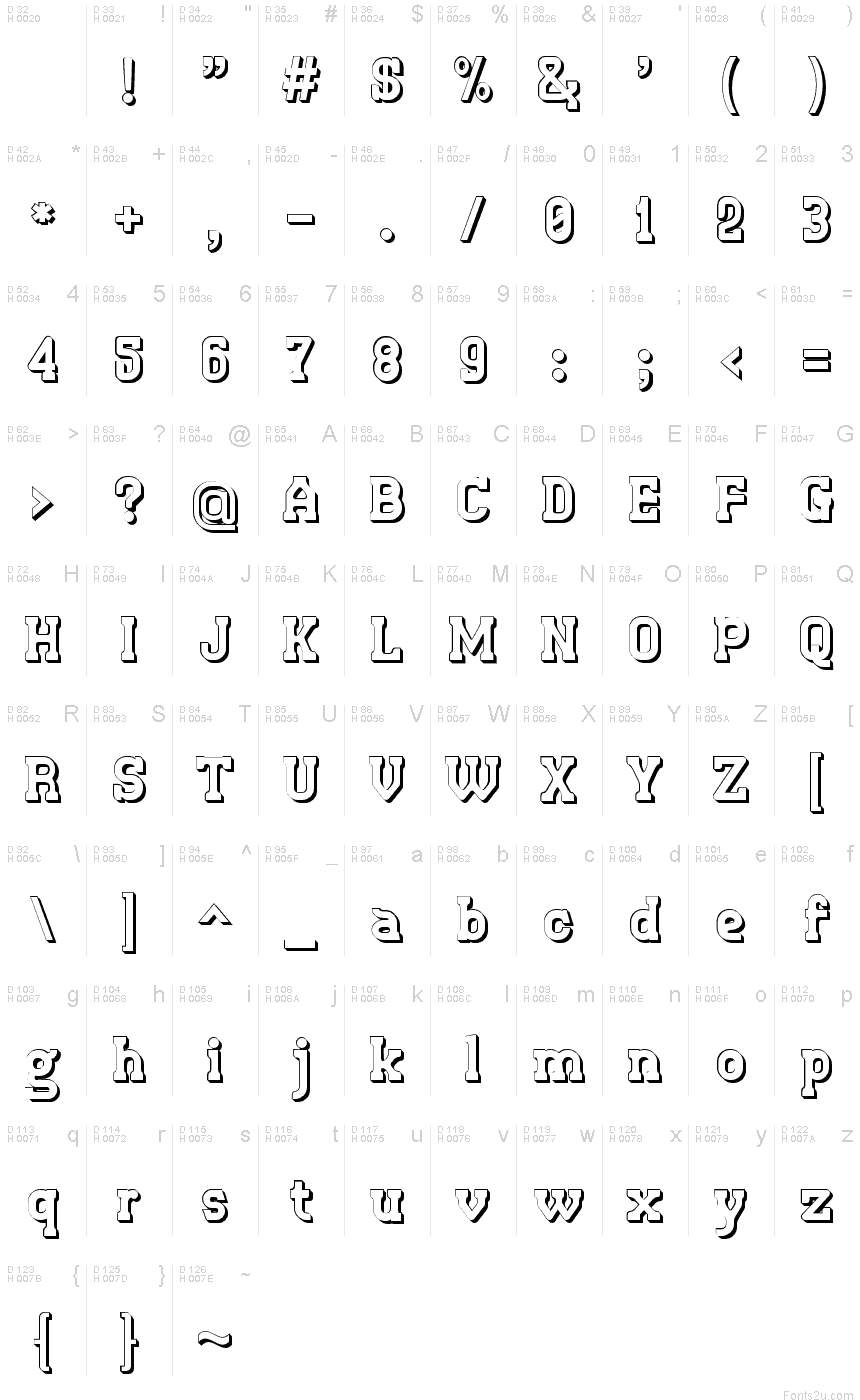
Retro Town 3D by Mostafa El Abasiry is a free Western outlined display font with broad slab serifs and deep offset shadows. Rounded inner shapes soften the sturdy construction, and the uneven notches give the letters the look of hand-cut storefront signage.
A saloon poster is its most convincing role. The same carved, dimensional style suits country music packaging, barbecue restaurant branding, and rodeo merchandise, especially when a design needs an old-town commercial flavor. Its outlined faces and dark side planes can echo illustrated wooden signs, storefront facades, and vintage product labels.